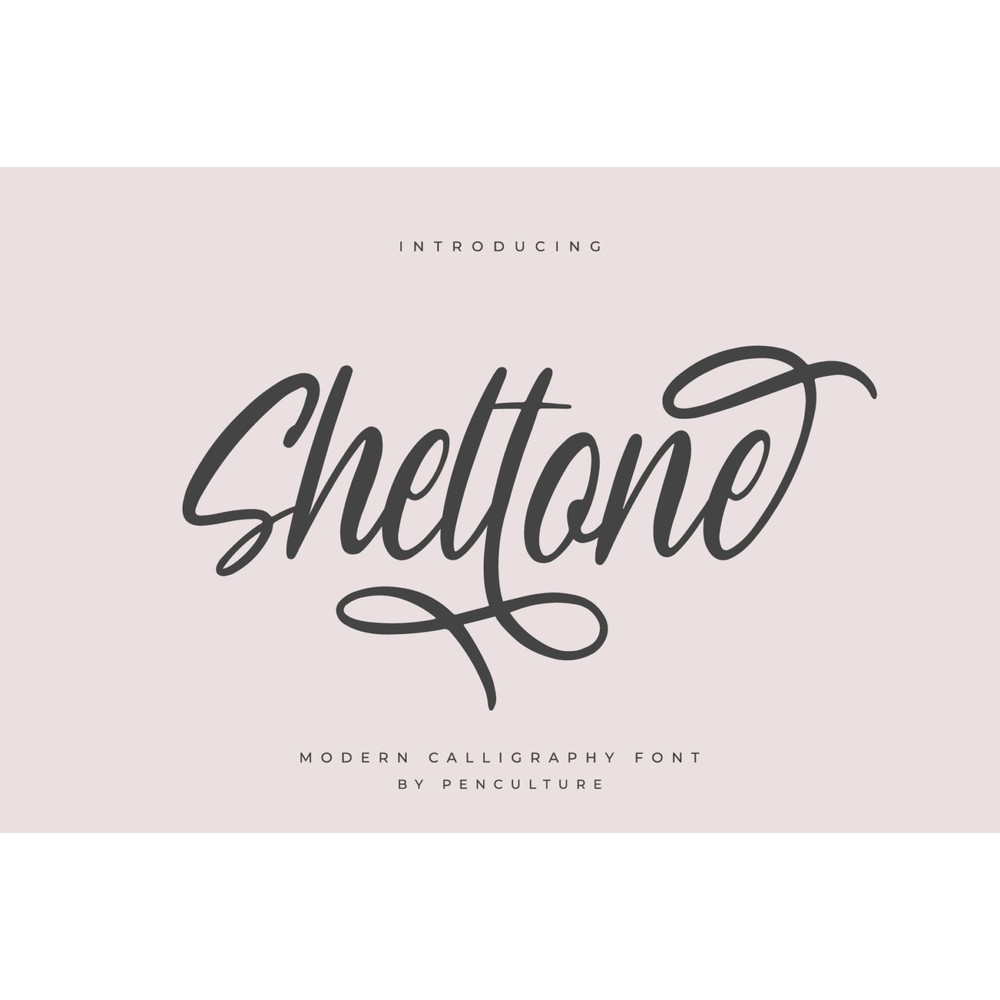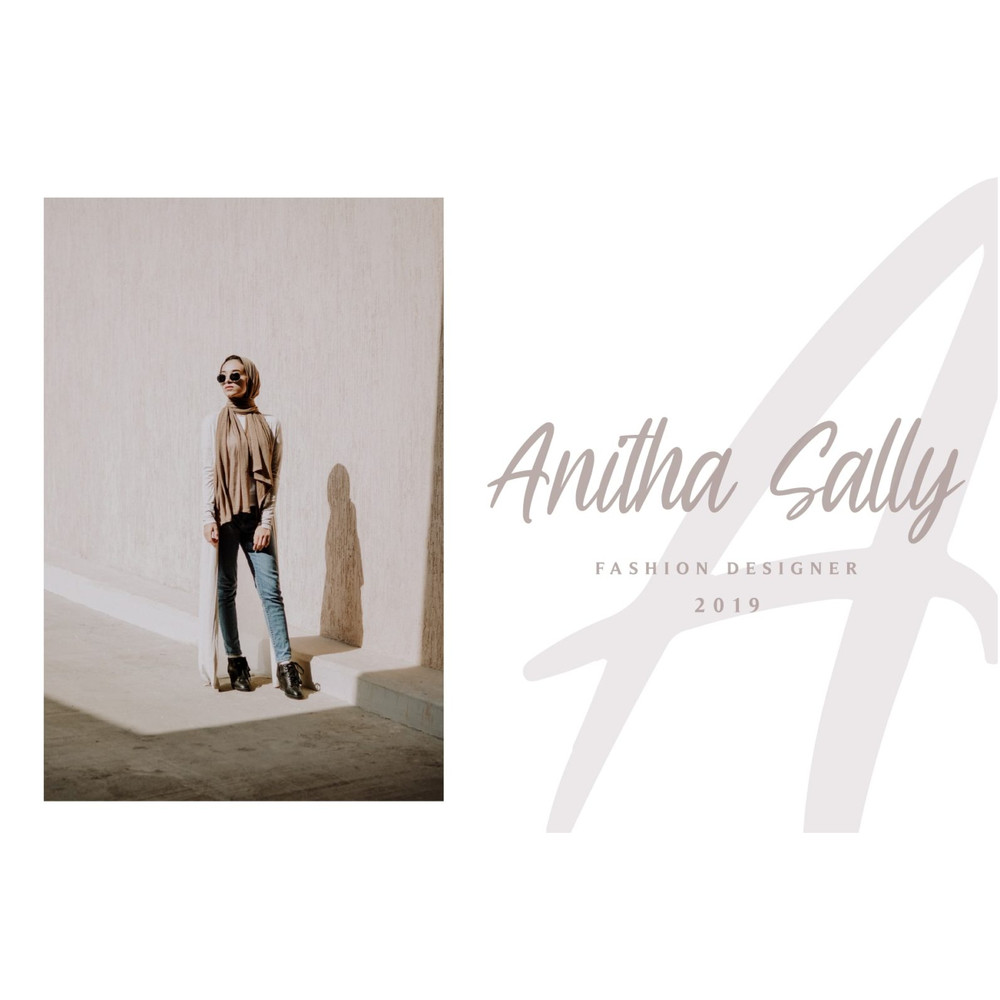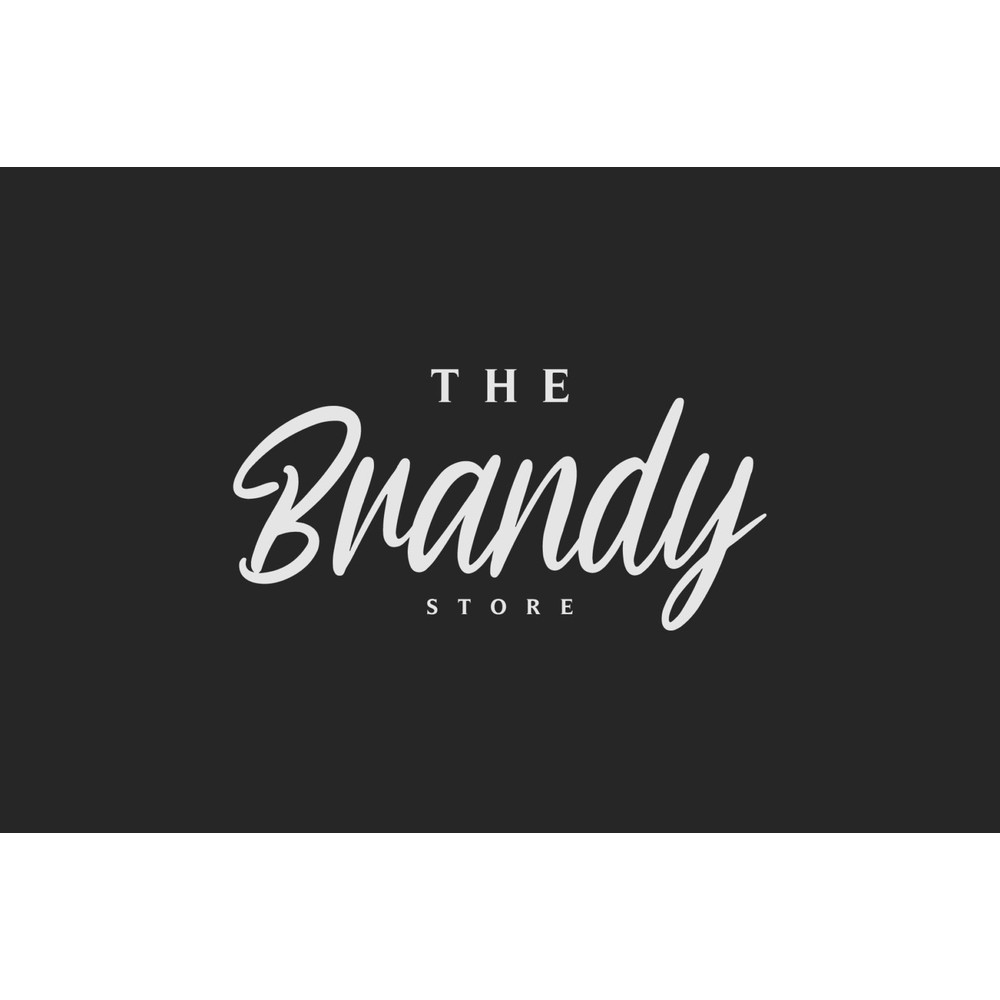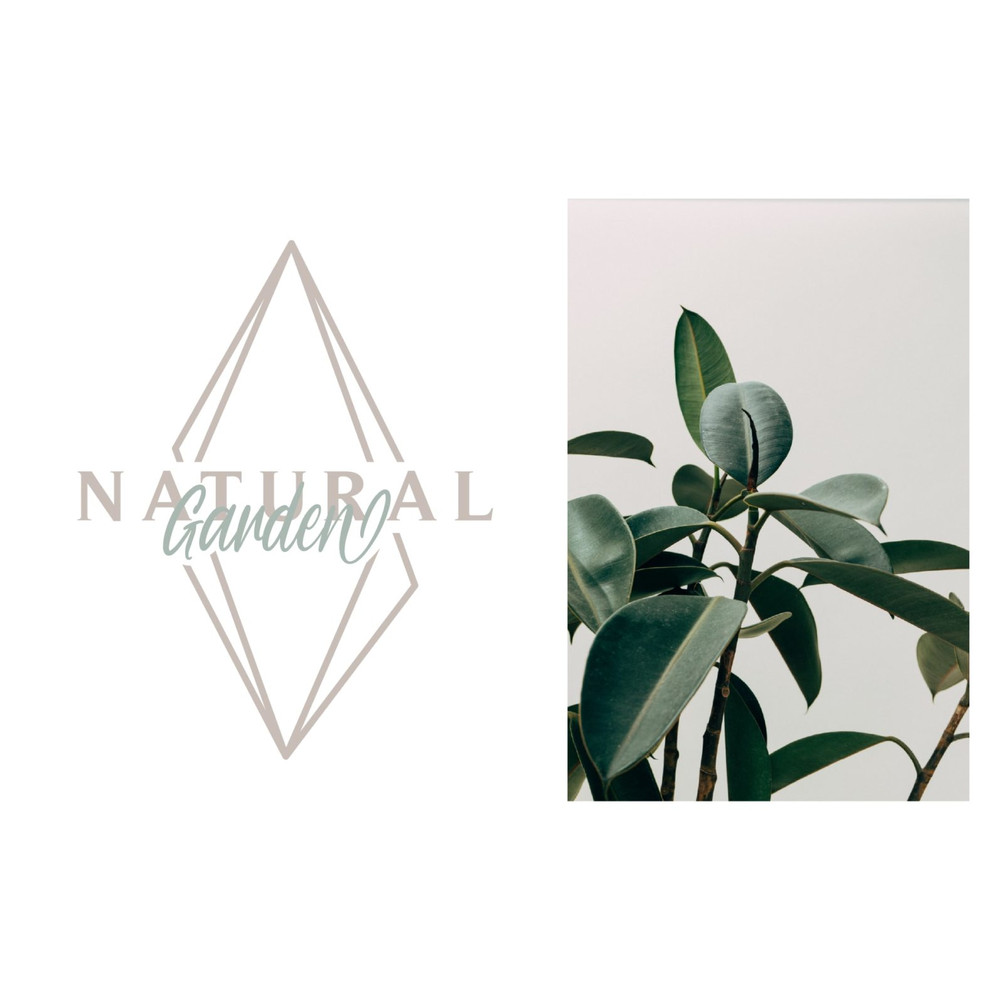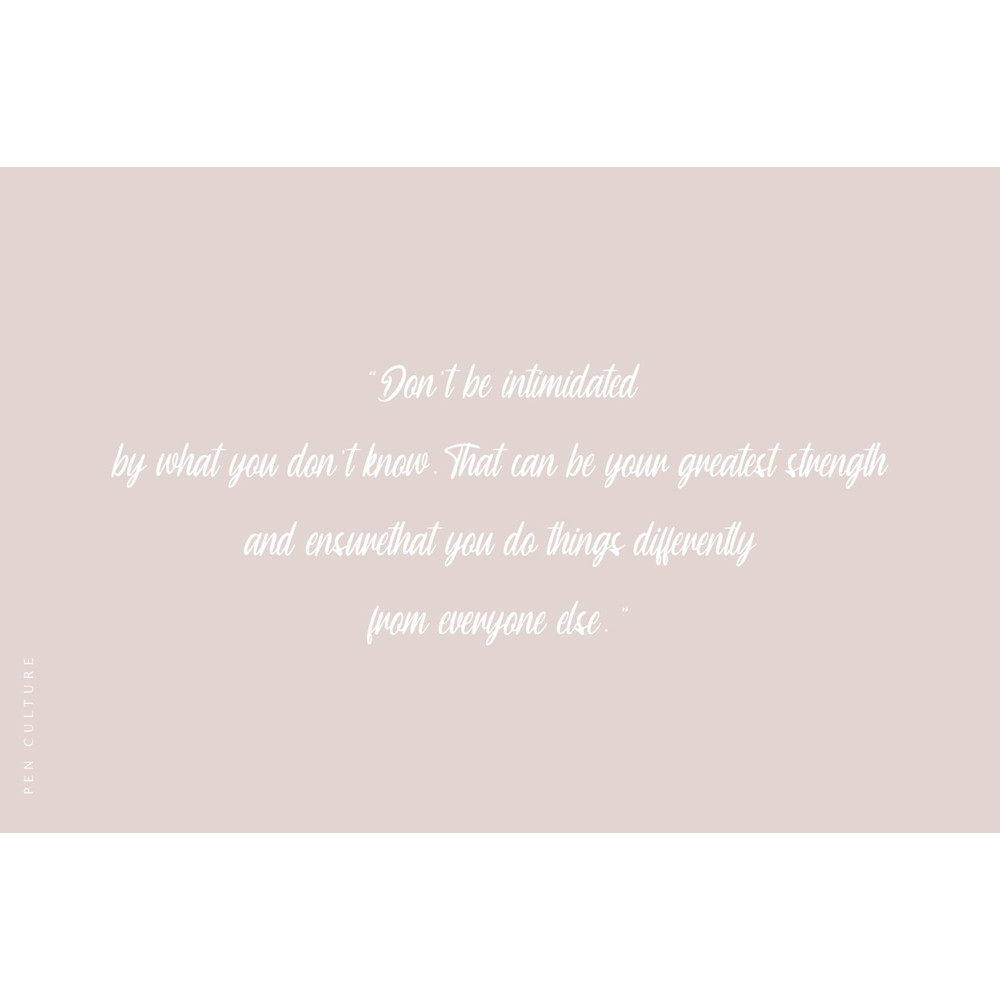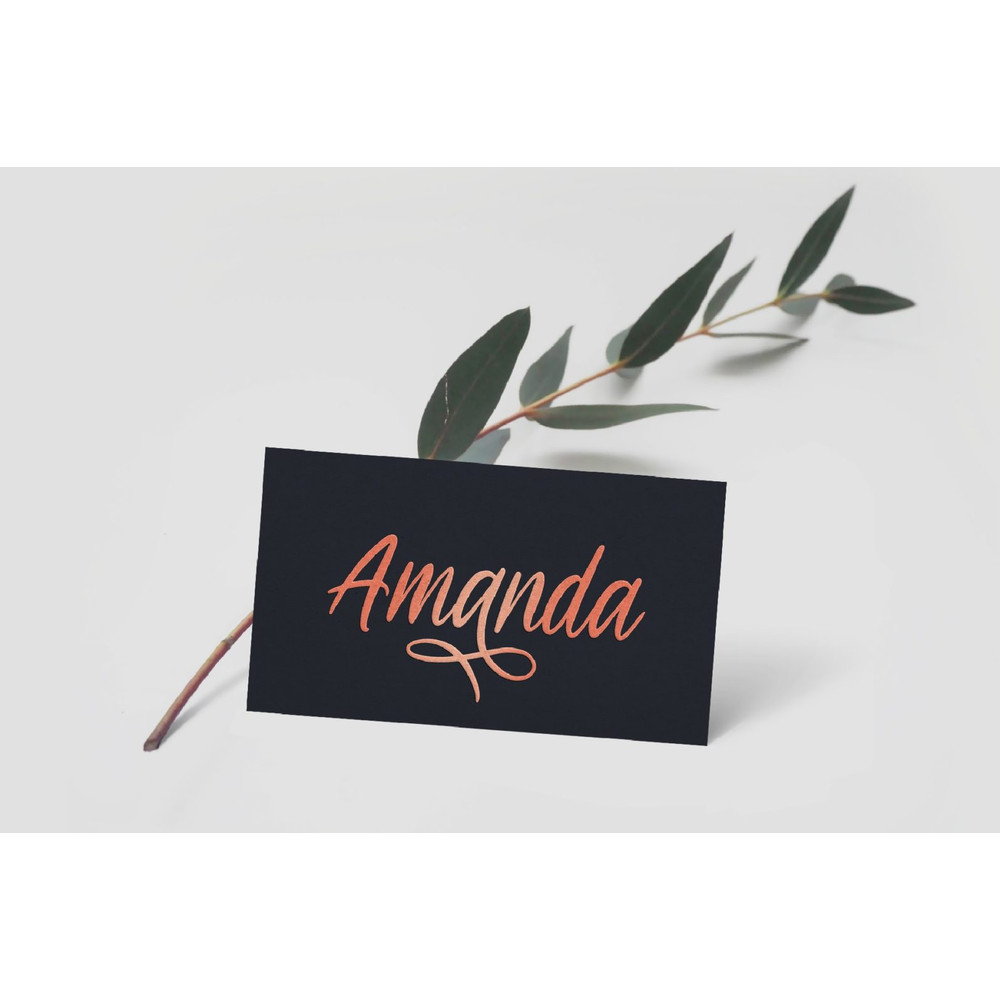
Sheltone – Modern Cslligraphy Trending Fonts - Digital Font
Sheltone is beautiful modern calligraphy font that comes with various kinds of alternate that will make designing Instagram quotes, websites, invitations, poster, and many other so much easier and fun.
– Uppercase and lowercase
– Number
– Punctuation
– Beautiful alternate